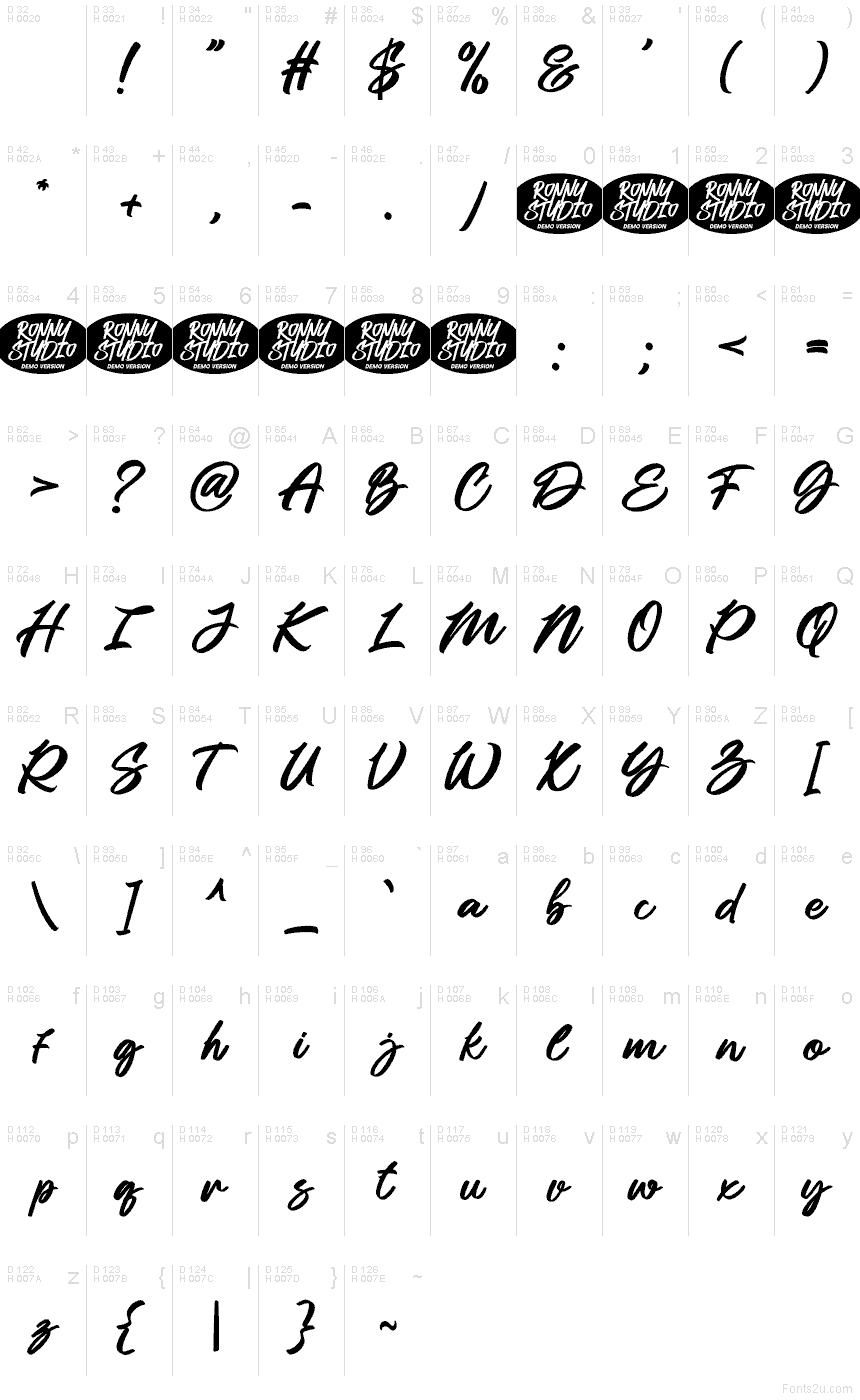
Shilten DEMO
Shilten font from Ronny Studio is a free handwritten font with elegant, flowing lines and stylish curves. This modern script features smooth continuity and expressive flair for creative designs full of character.
Use it for a wide range of projects such as invitation cards, flyers, logos, posters, book covers, postcards, social media banners, print products, packaging labels or high standard brand presentations.